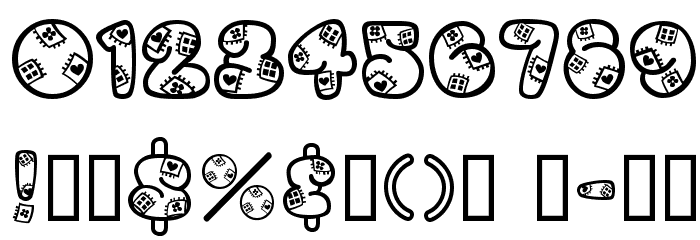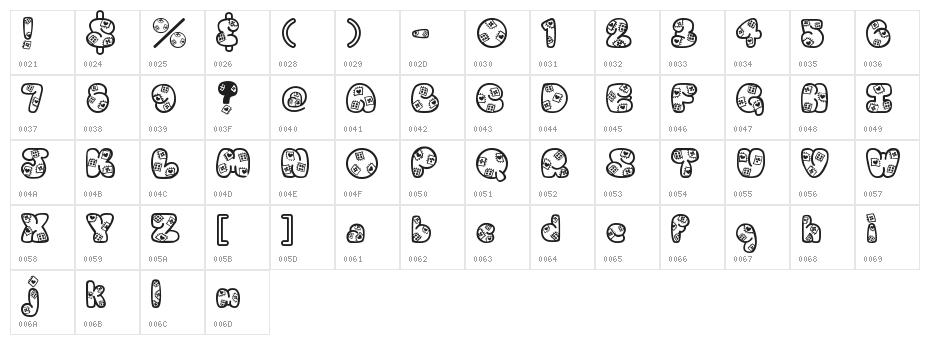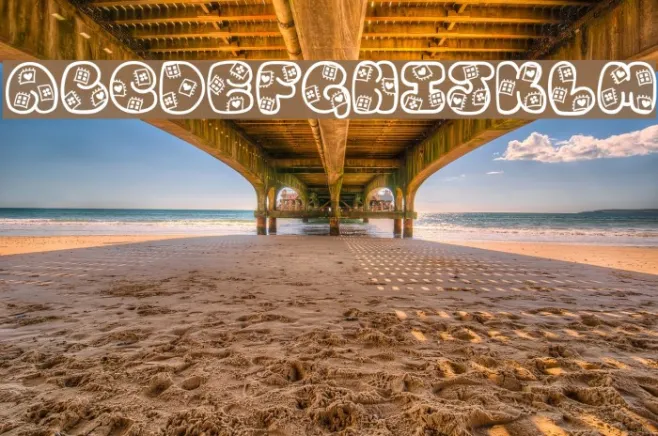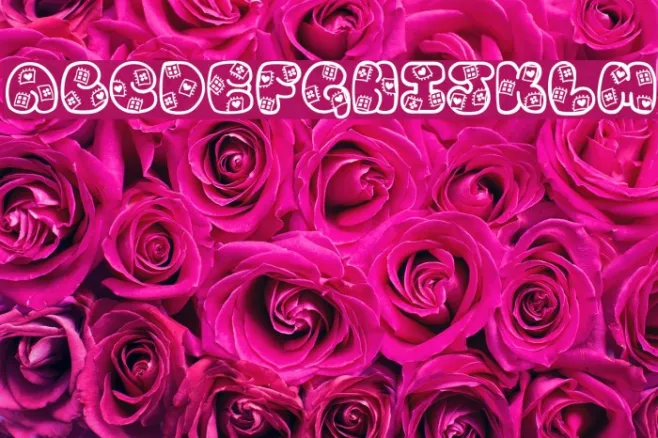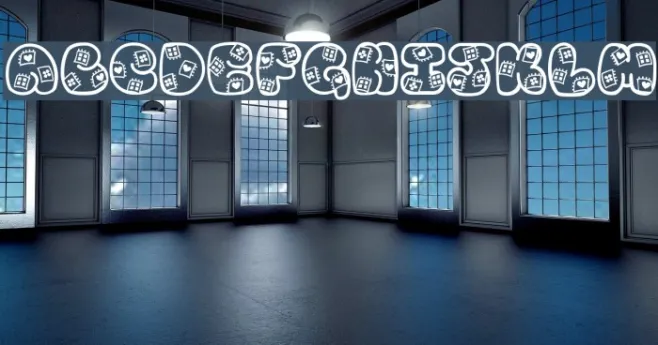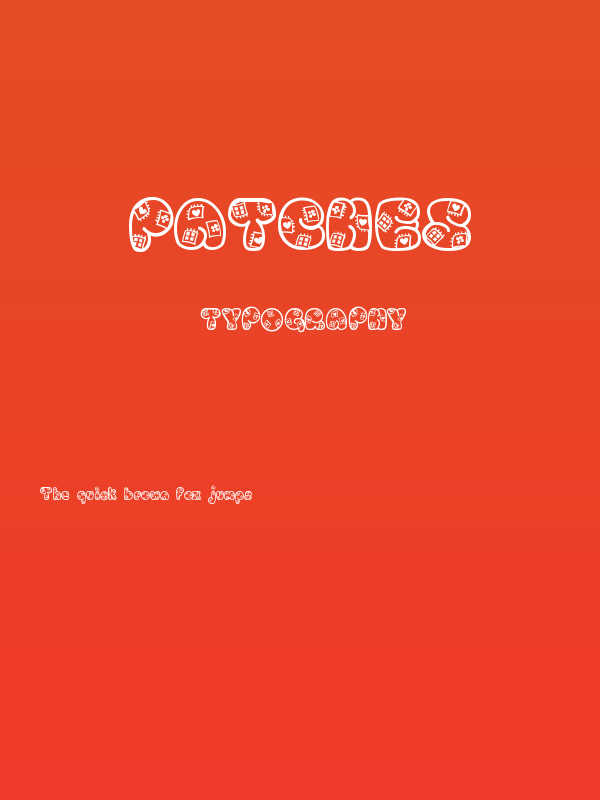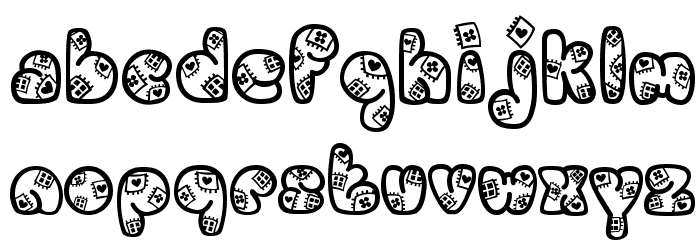
Patches Font
Patches Description
This playful and whimsical font features letters and numbers adorned with patch-like designs, giving it a unique and quirky appearance. Each character is filled with various patch patterns, creating a textured and layered look. The bold outlines enhance the visibility of the patches, making the font stand out. The rounded and bubbly shapes of the characters add to its fun and casual style, making it ideal for creative and informal projects. The font's distinctiveness lies in its decorative elements, which are consistently applied across all characters, including special symbols.